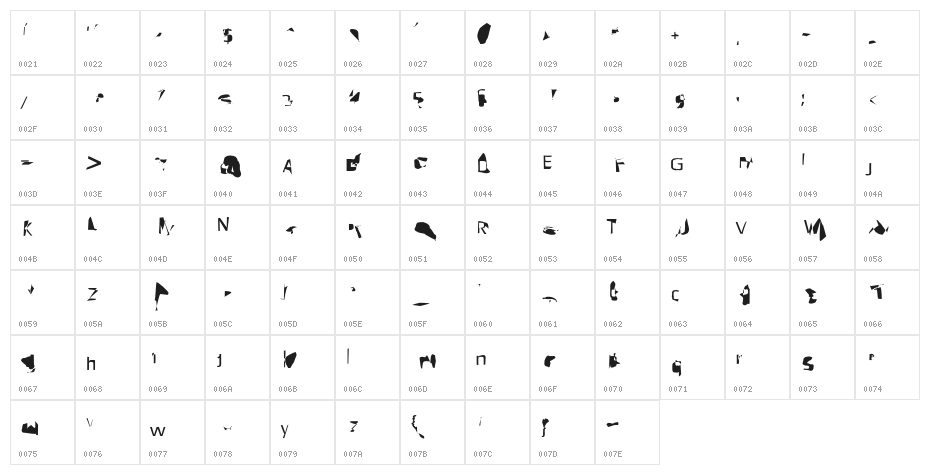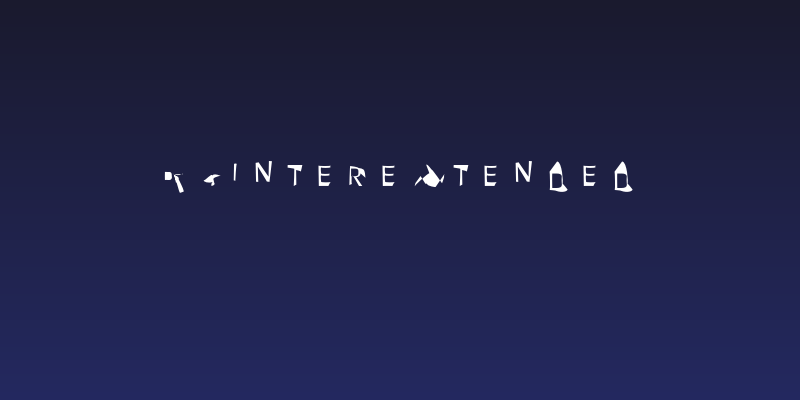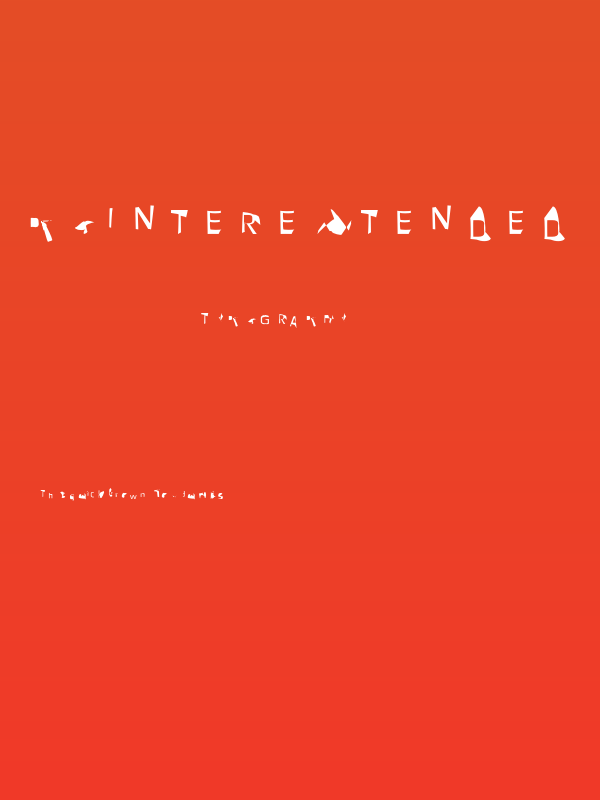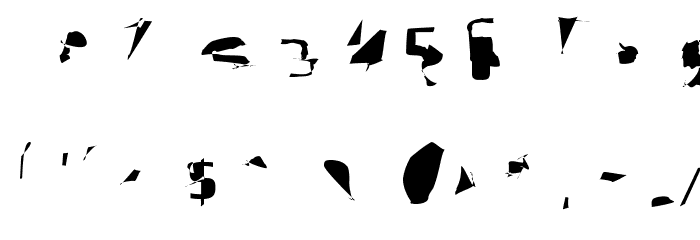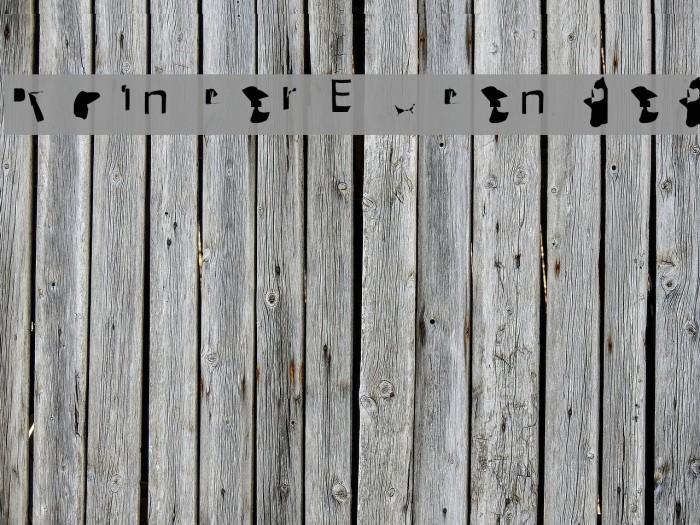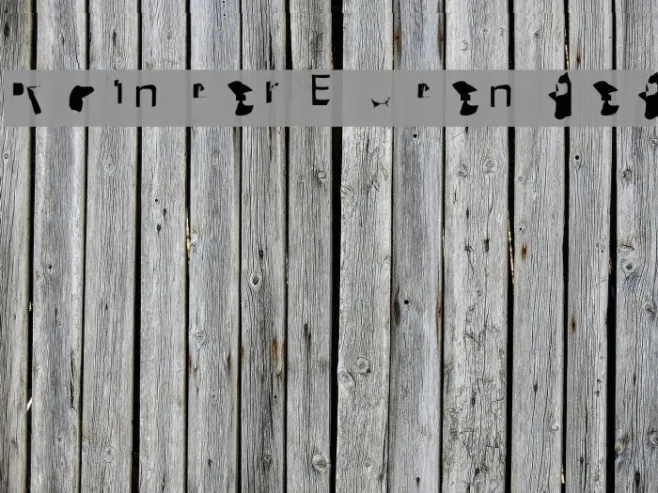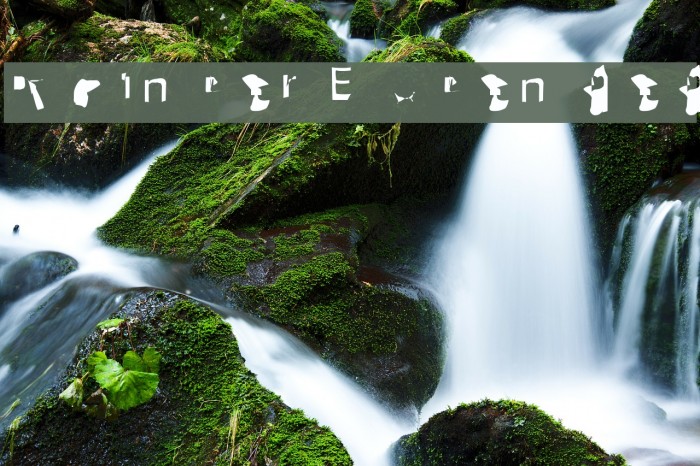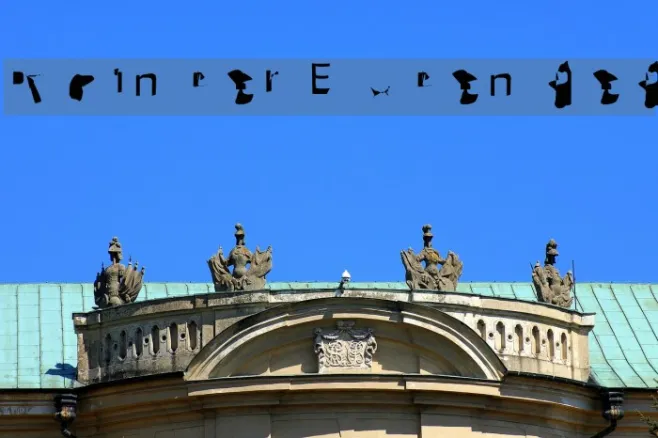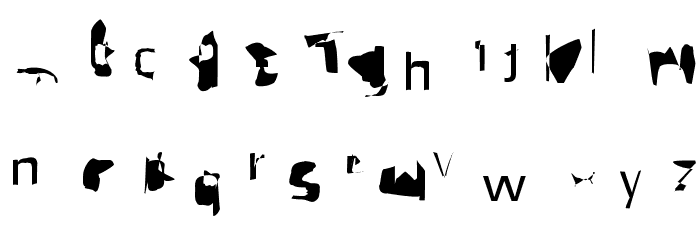
Pointer Extended Font
Pointer Extended Description
This font exhibits a highly abstract and fragmented design, characterized by sharp angles and irregular shapes. Each character appears as if it has been shattered or distorted, creating a chaotic yet intriguing visual effect. The letters are not easily recognizable at first glance, requiring a closer inspection to discern their form. This style is reminiscent of modern art, where traditional forms are deconstructed to challenge perception. The font's unique appearance makes it stand out, though it may not be suitable for readability-focused applications.
| Overall Style | Modern, Abstract |
| Use Case | Logos, Artistic displays, Experimental design |
| Proposed Projects | Ideal for avant-garde art projects, experimental design work, or as a statement piece in modern graphic design. |